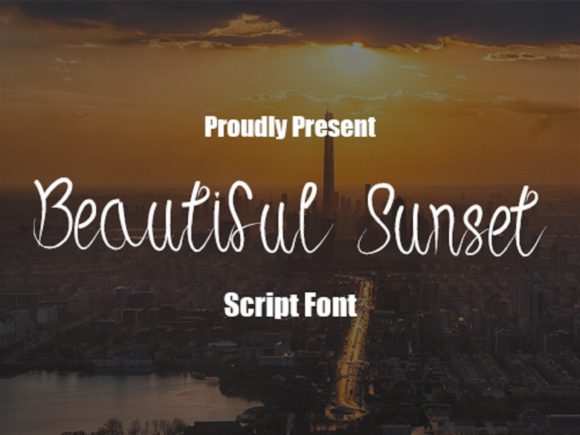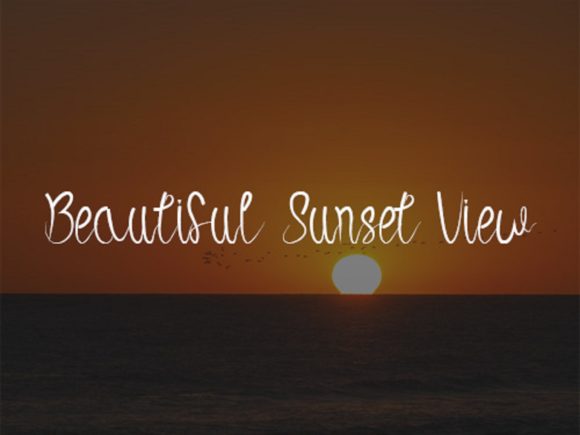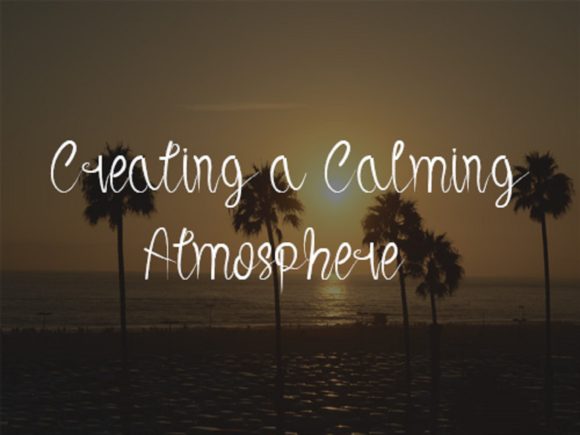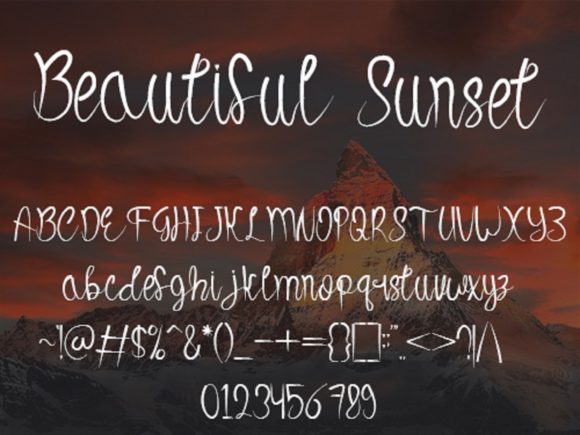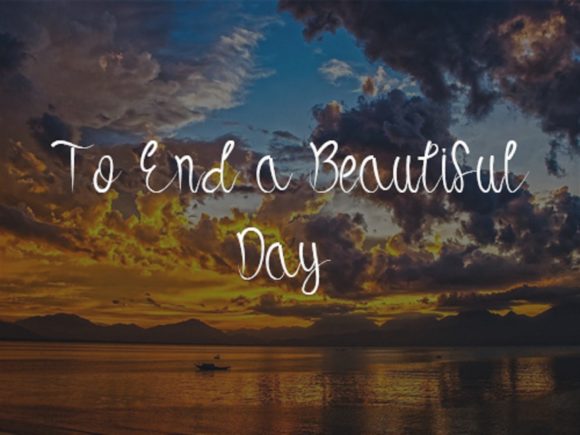
Beautiful Sunset Font
About Beautiful Sunset Font
Beautiful Sunset is a lovely and delicate script font that exudes elegance and class. This font was particularly crafted for those who need a beautiful and refreshing look to their designs